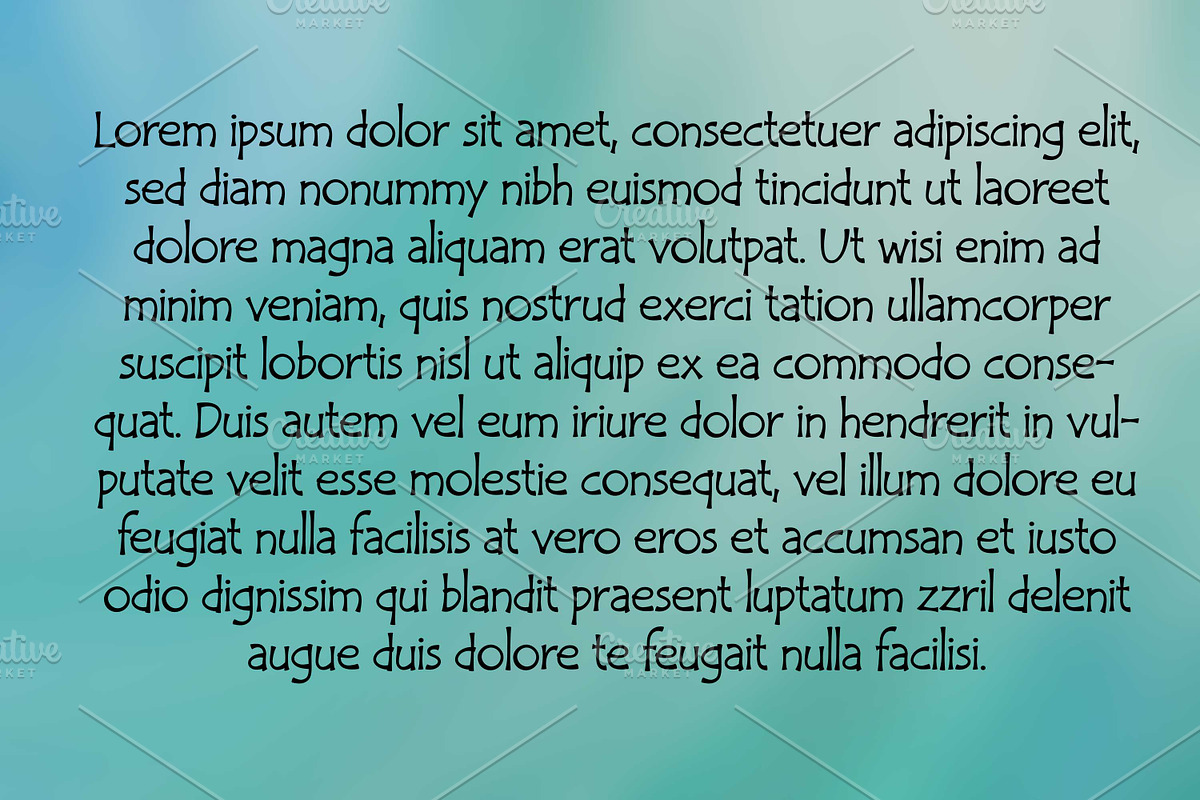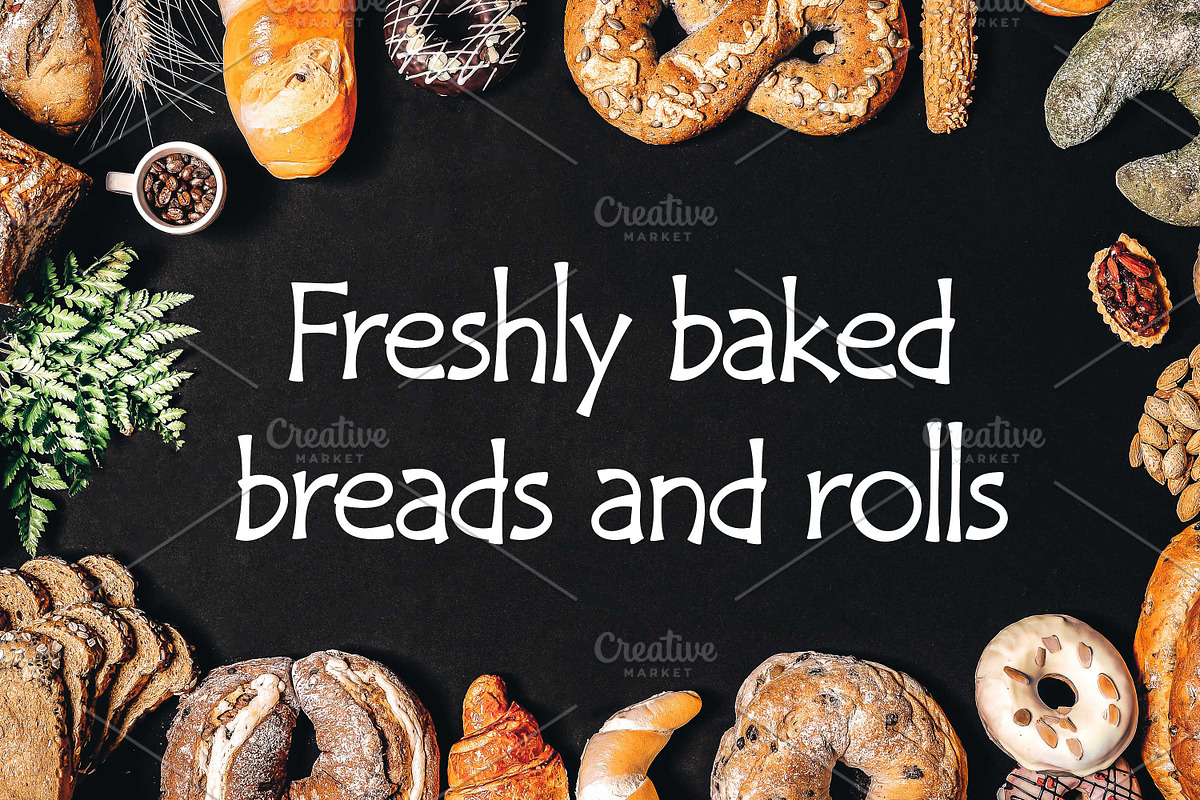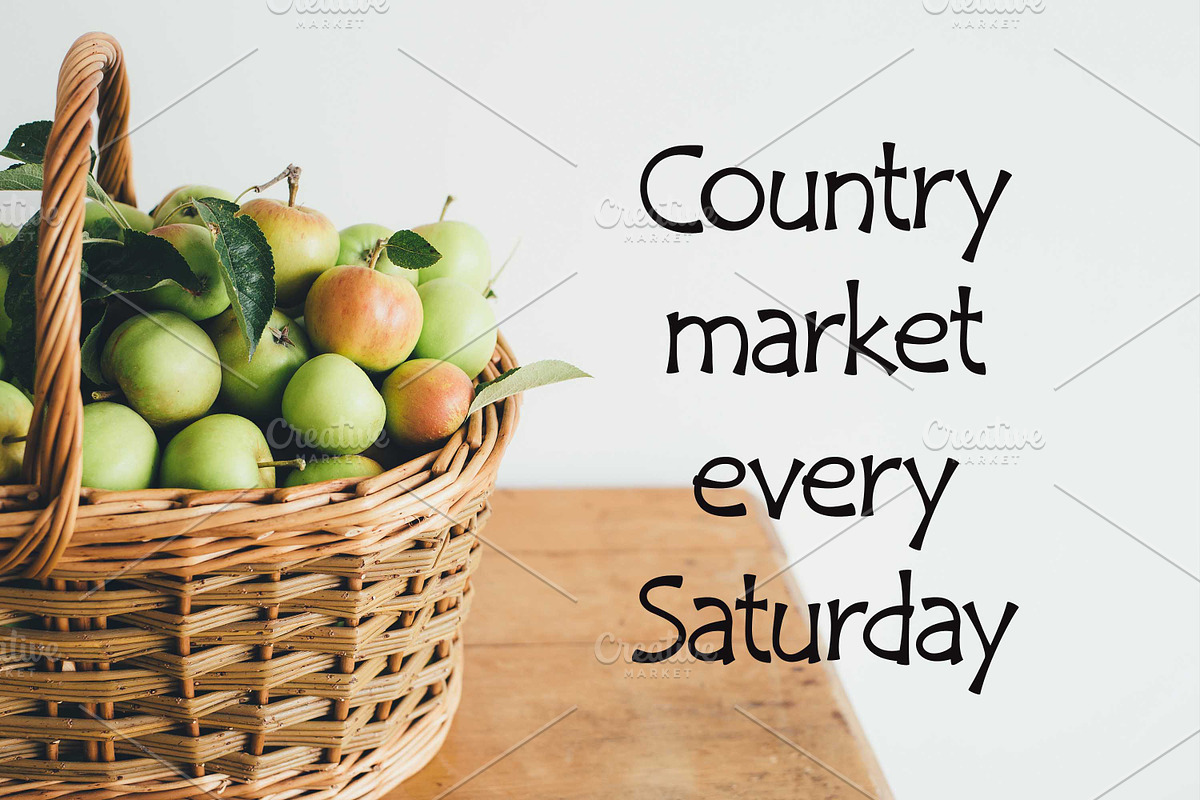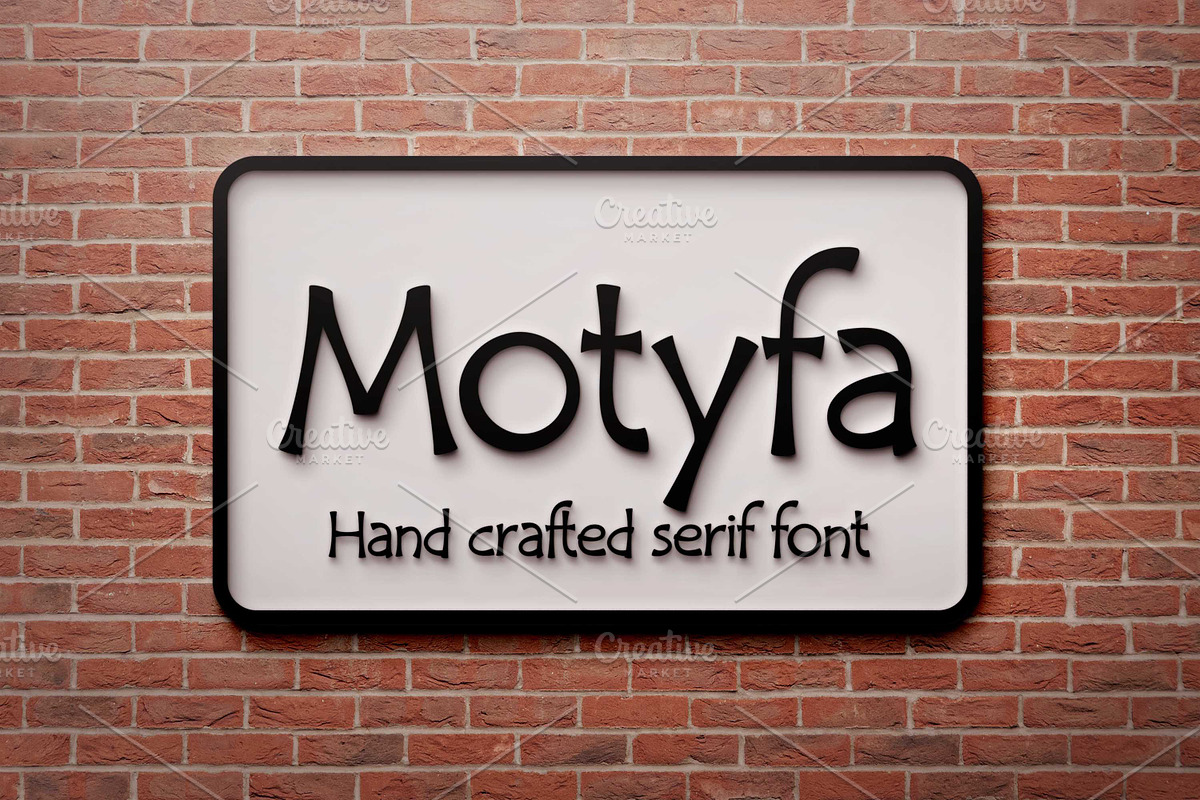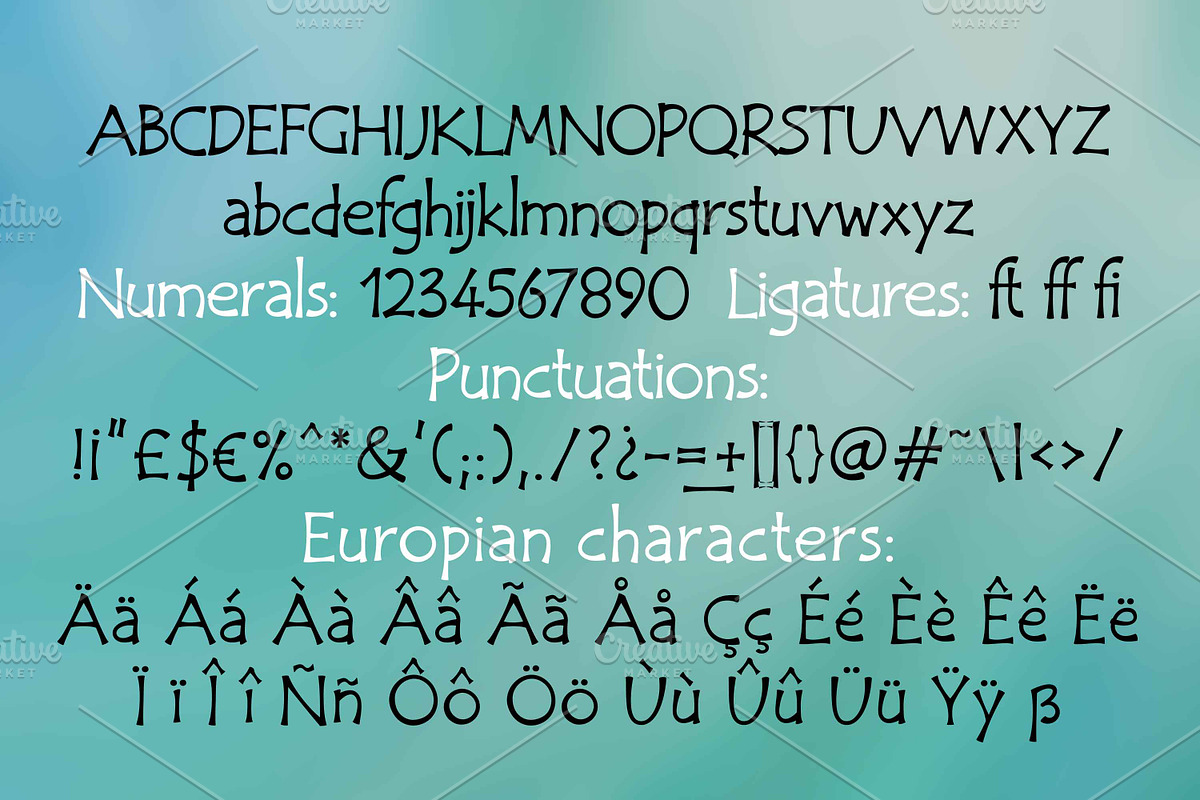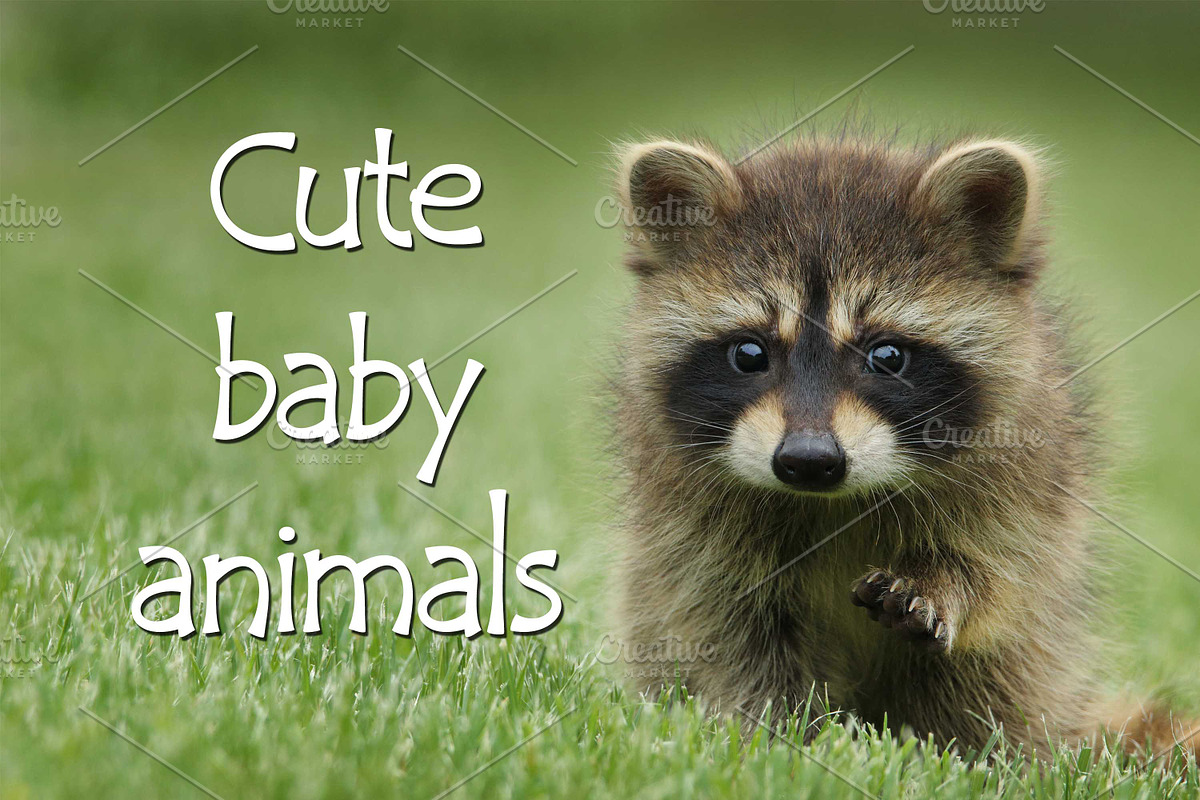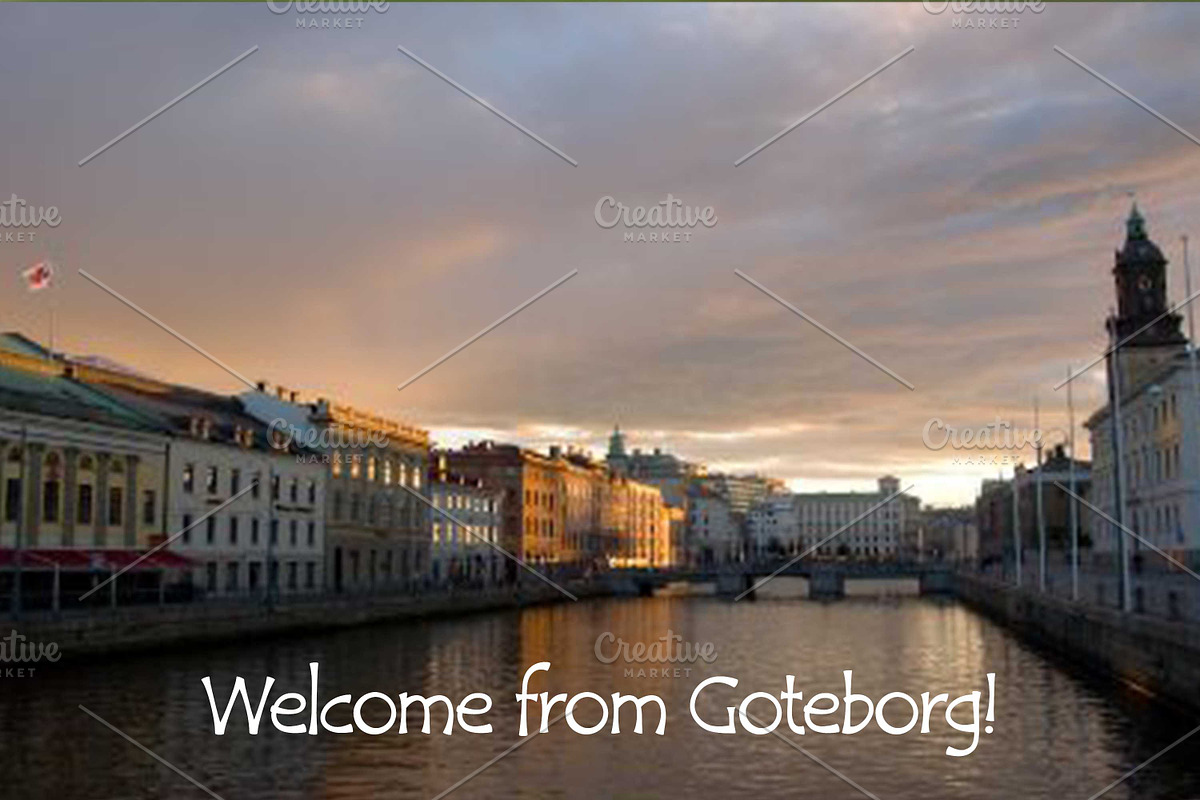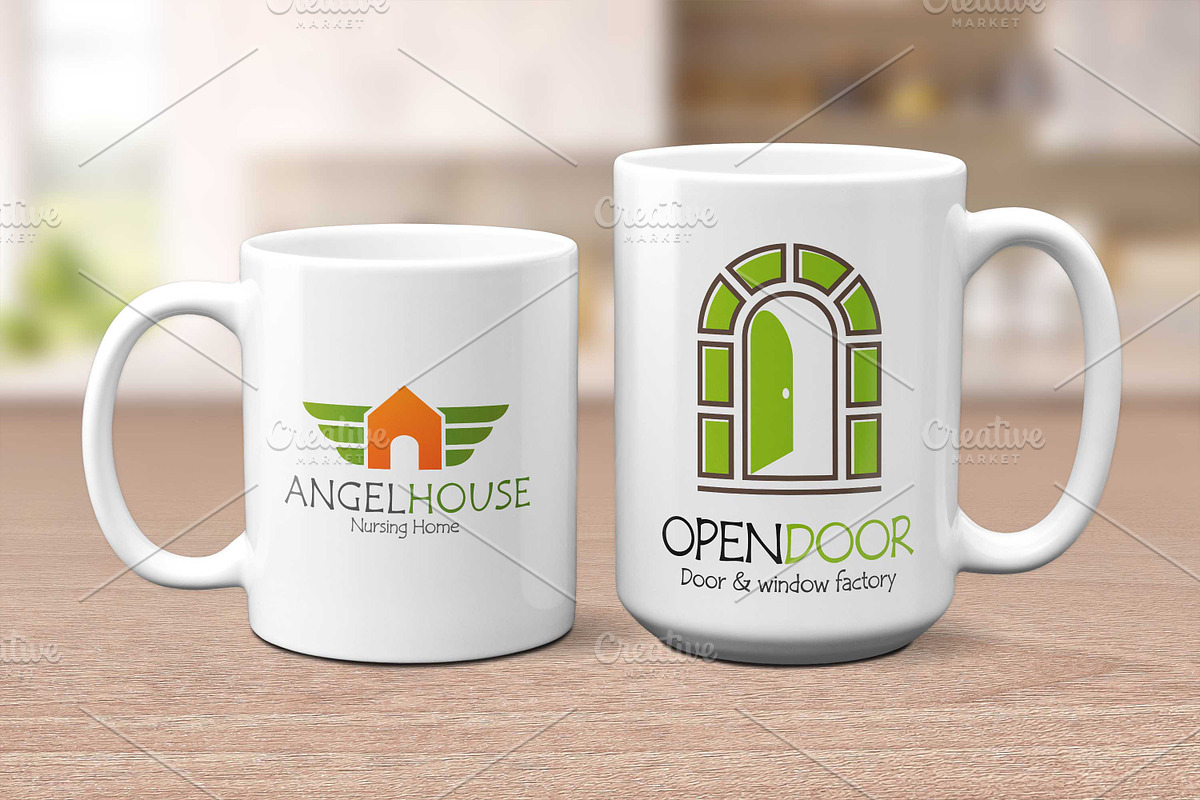
Motyfa
Motyfa is a stunning and versatile hand crafted serif font.
It can easily be matched to any projects, so add it to your creative ideas and notice how it makes them stand out!
Motyfa is fantastic for your next project, including branding, wedding invitations, signage, & more.